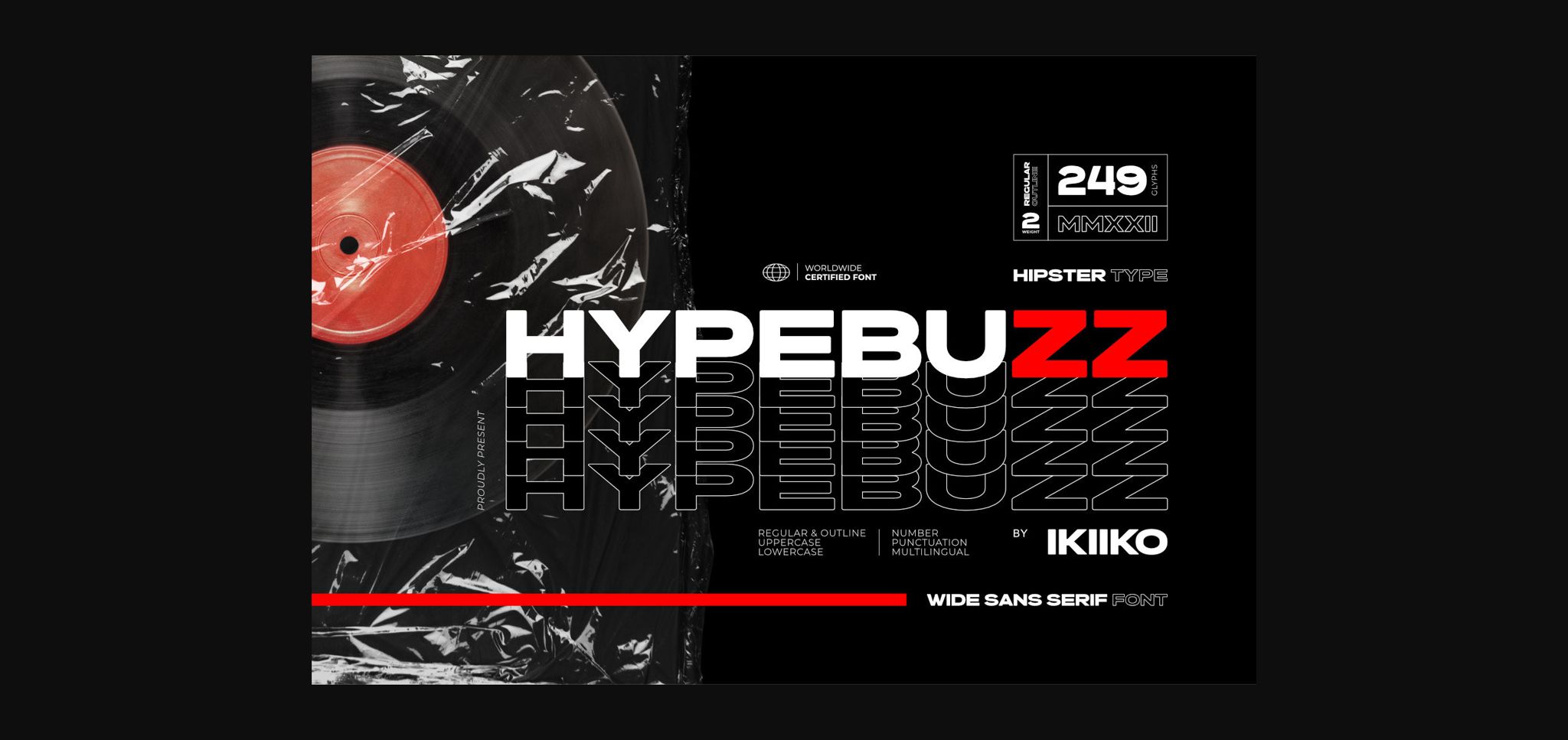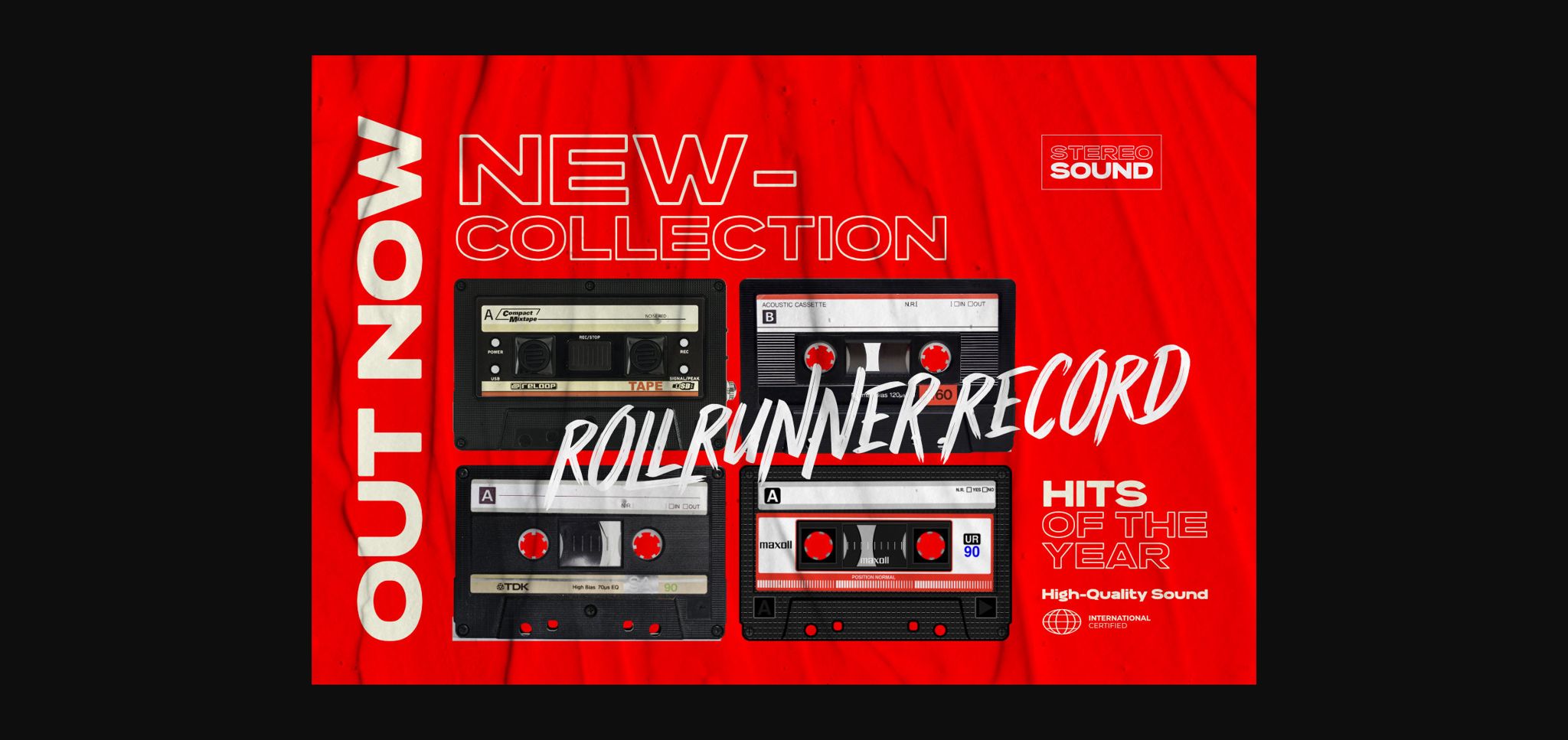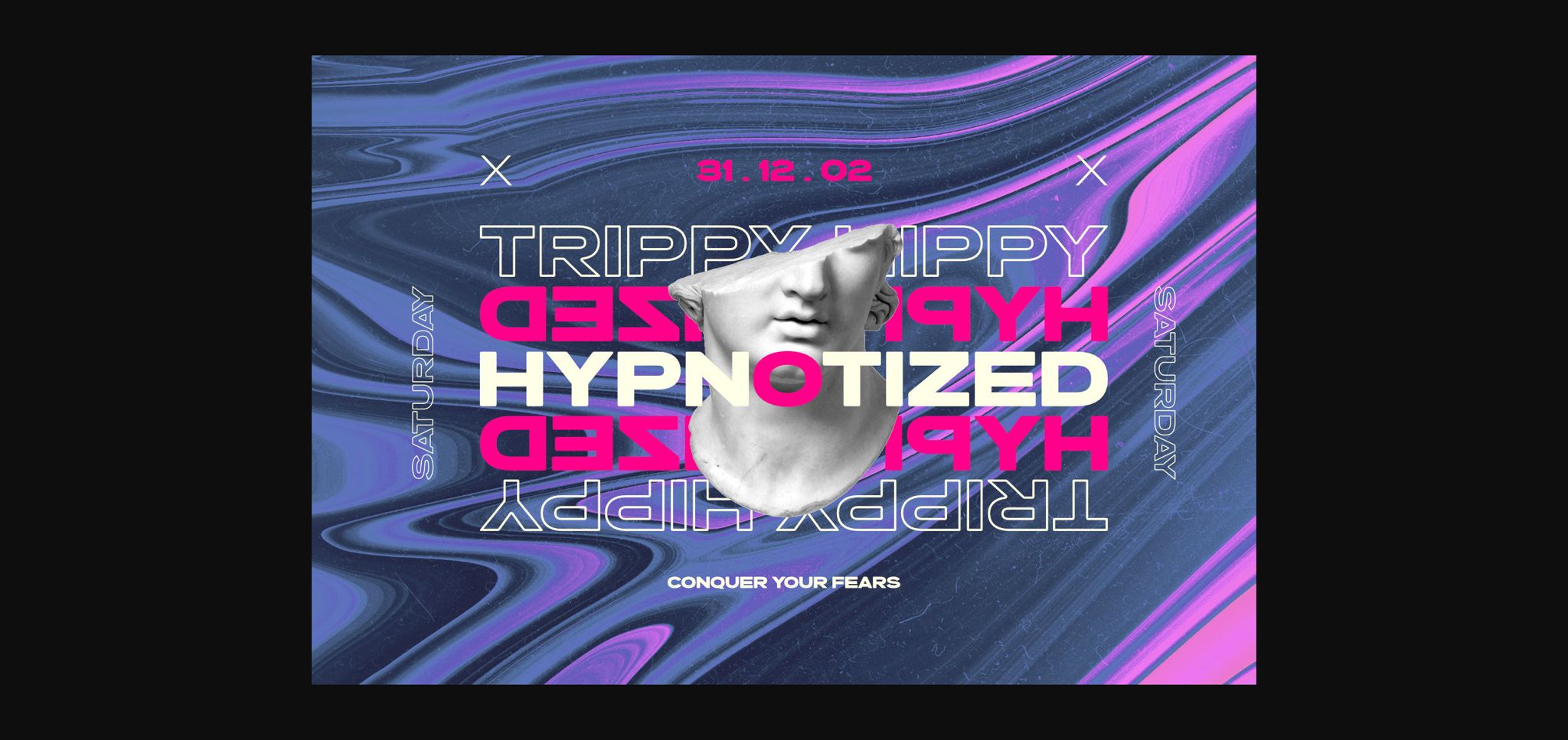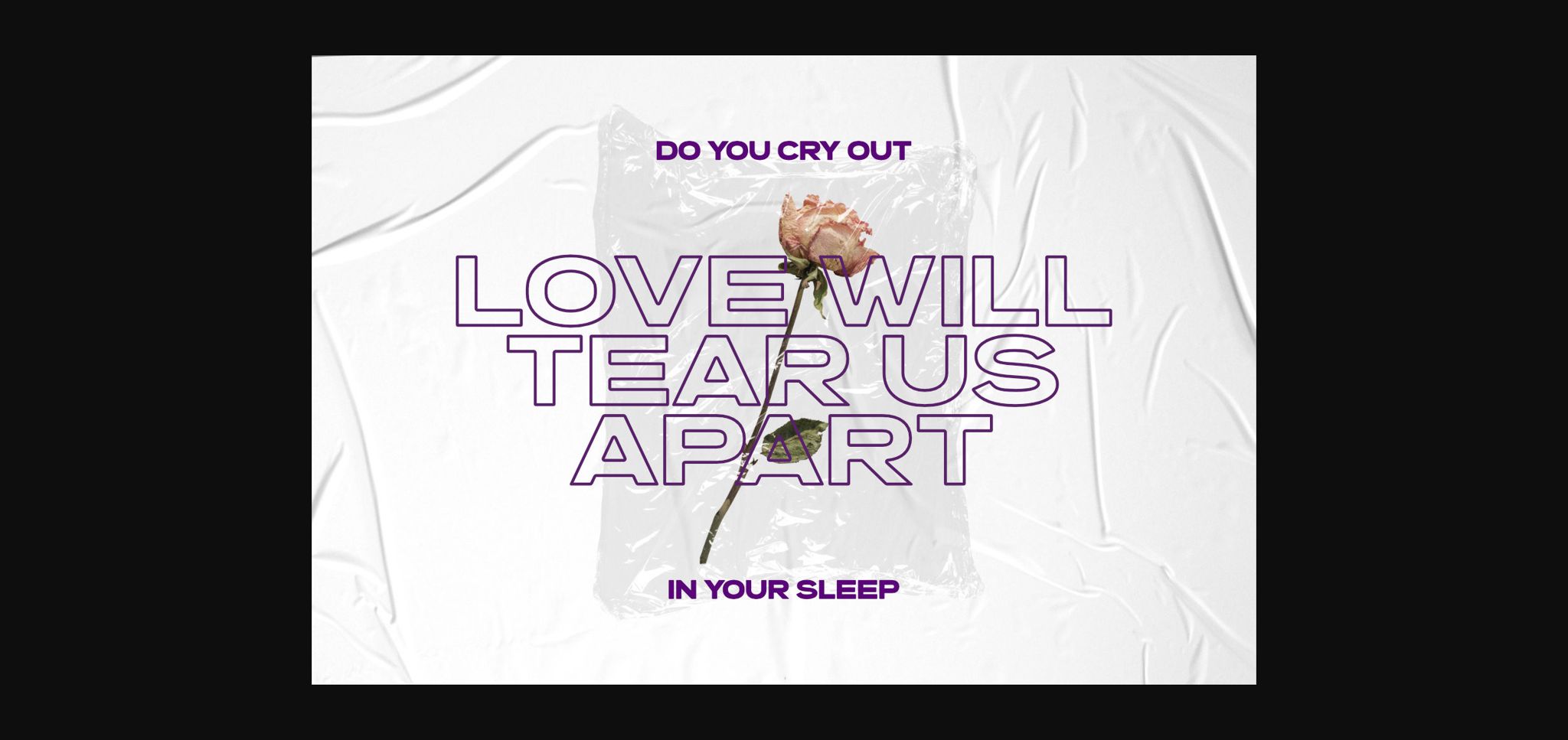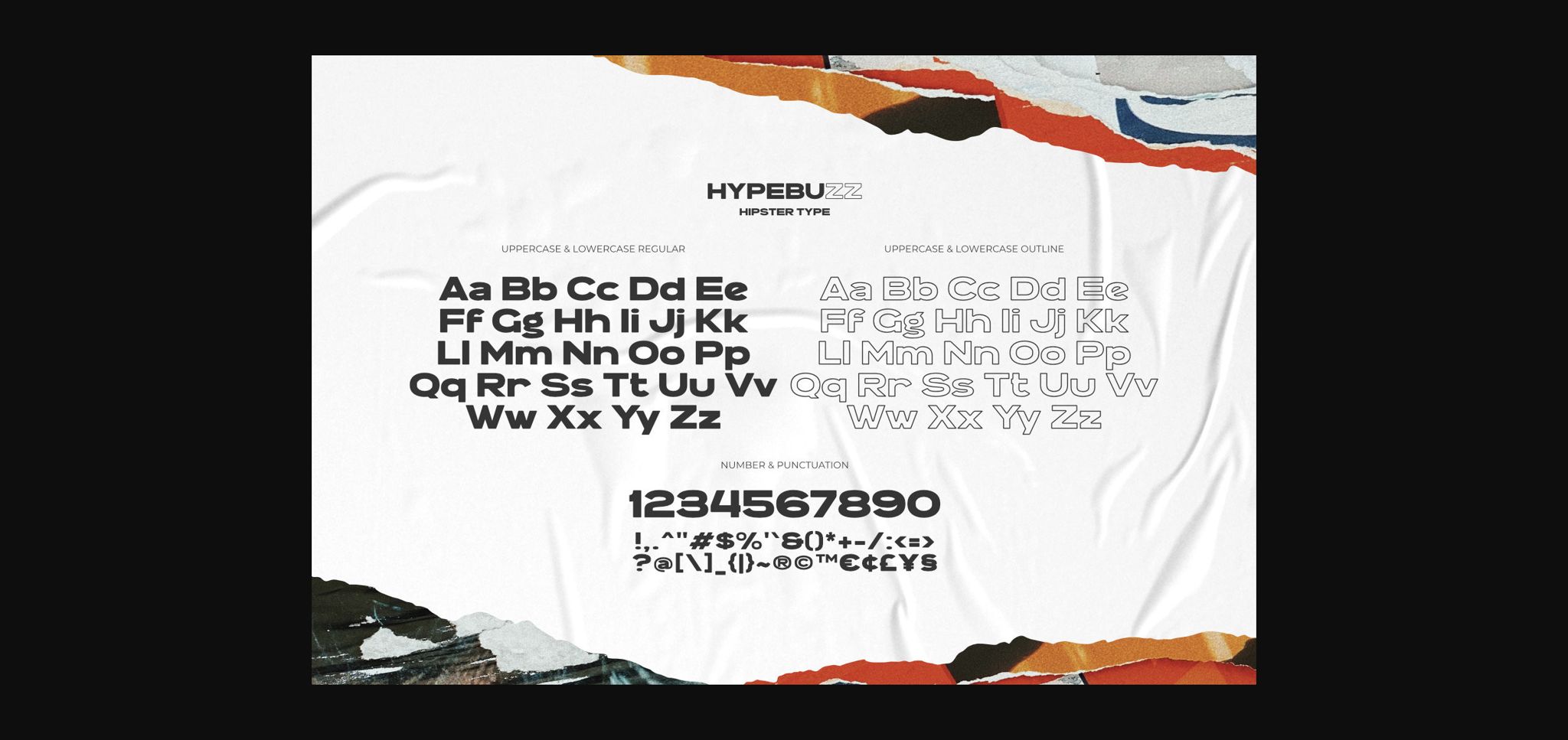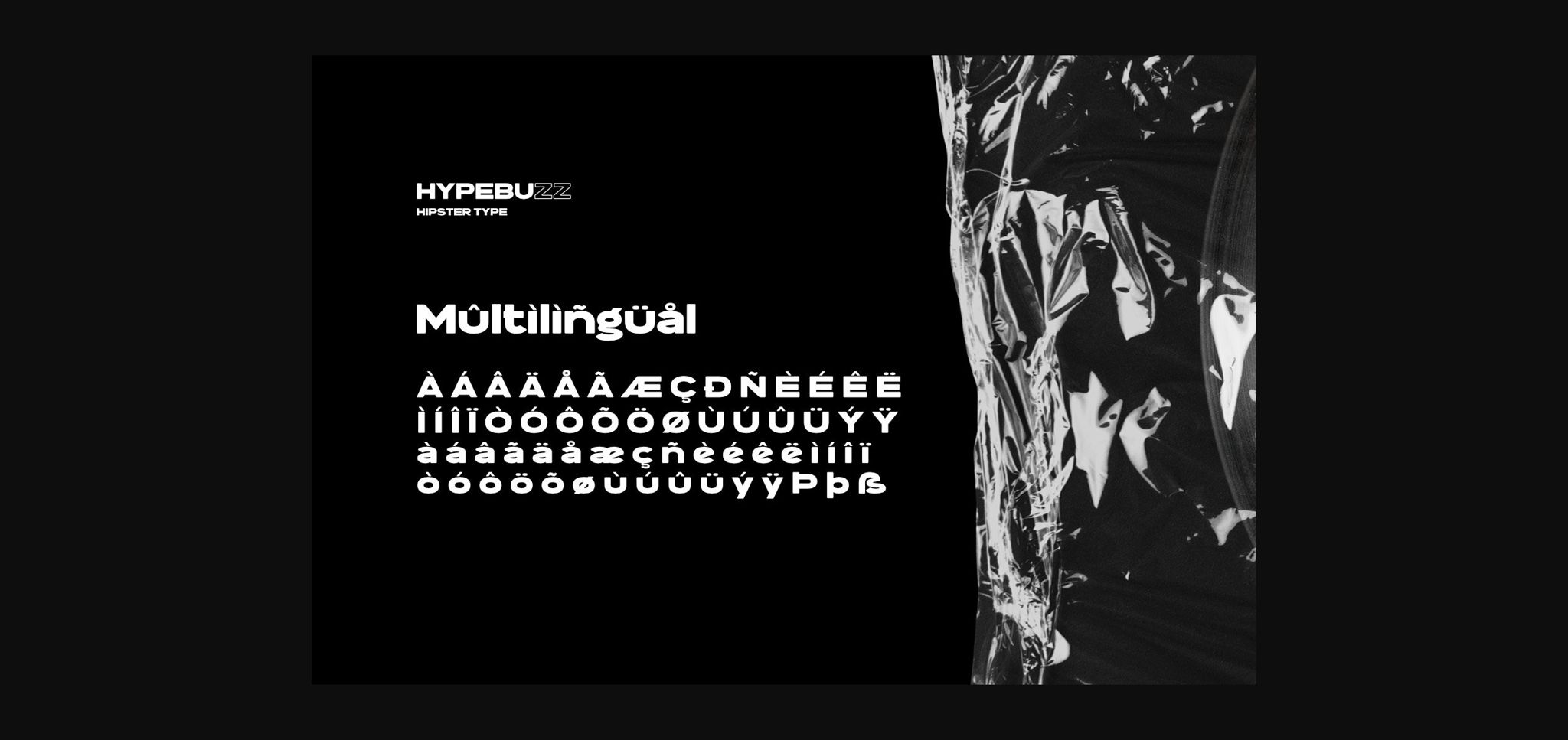
About Hypebuzz Font
Hypebuzz is an urban sans serif font with a distinctive wide shape. Its urban, hipster-vibe type is great for posters, magazine layouts, brand logos, party flyers, quotes, or simply as a stylish text overlay to any background image.